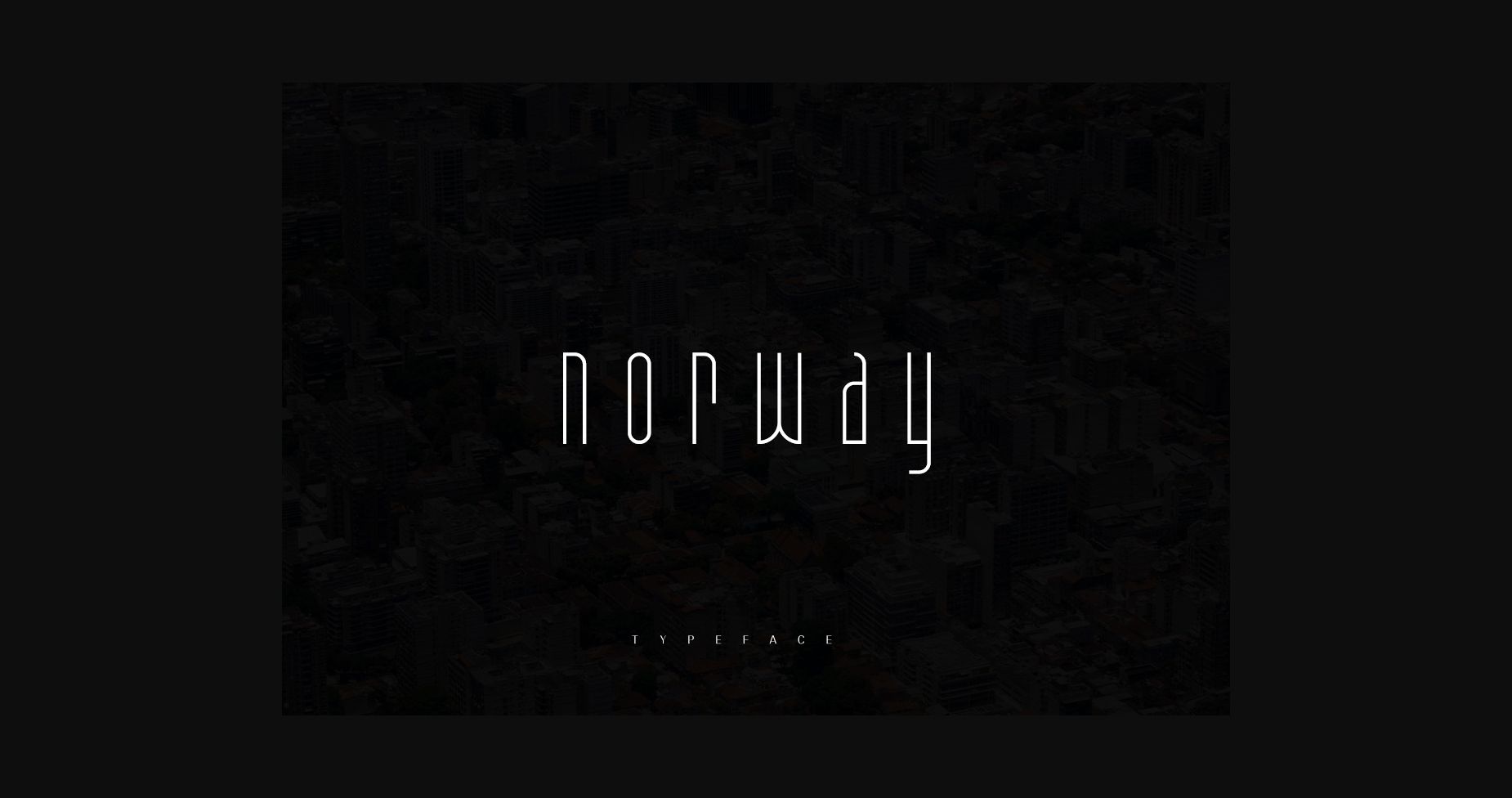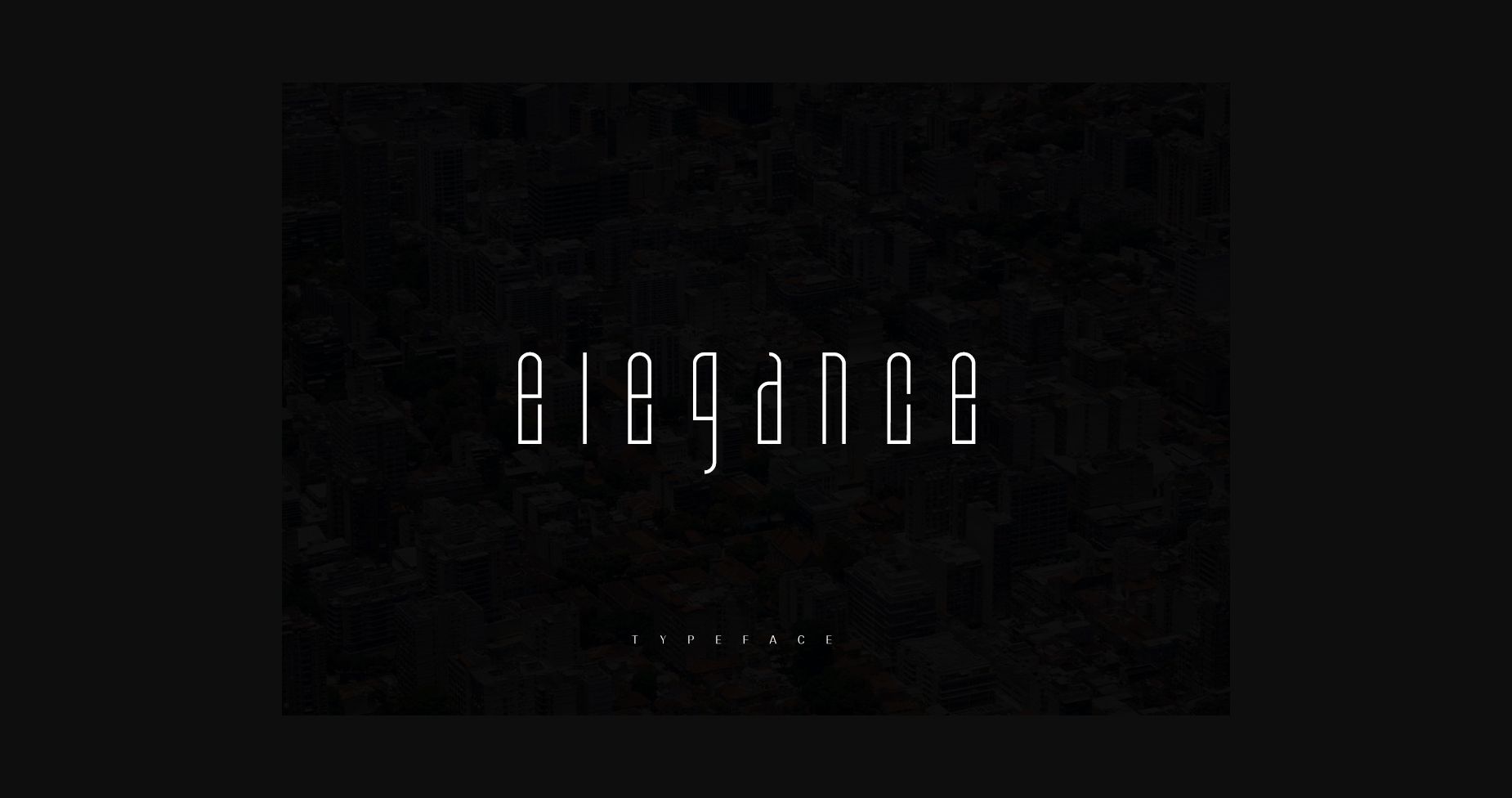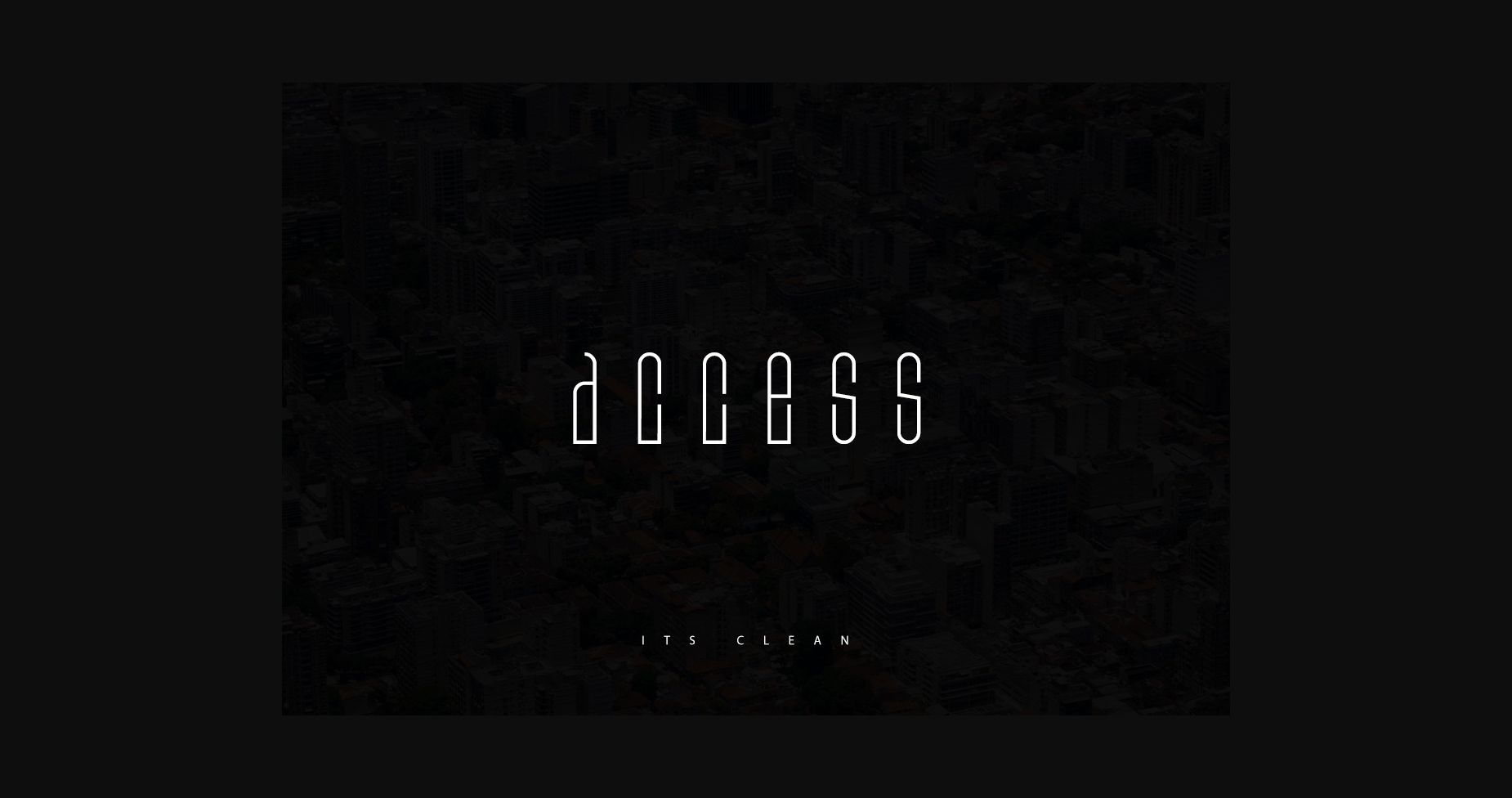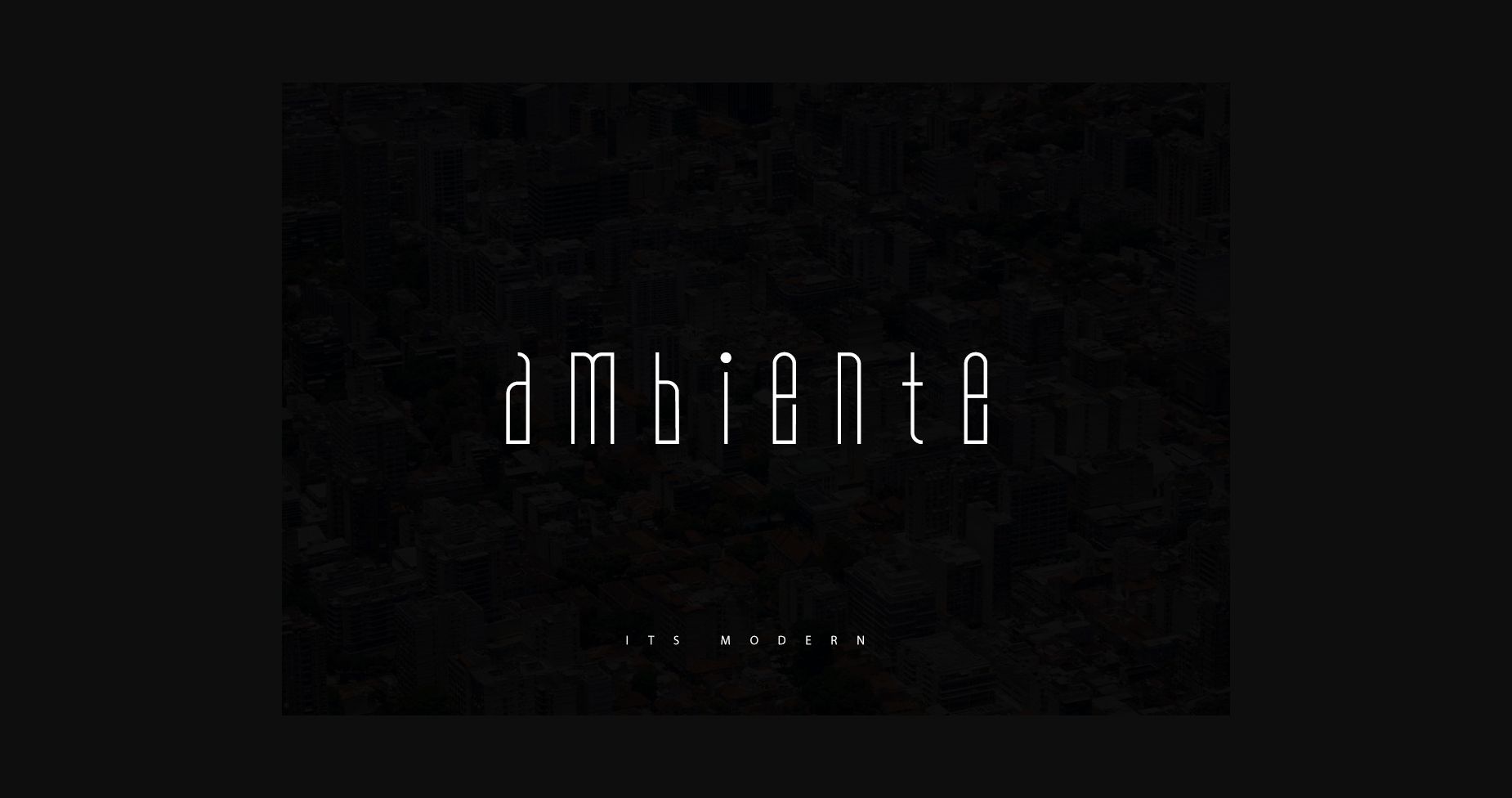
Norway is a thin lettered and cool sans serif font. Suitable to a wide variety of designs due to its neat and simple style, this font has the potential to become your favorite go-to font, no matter the occasion!